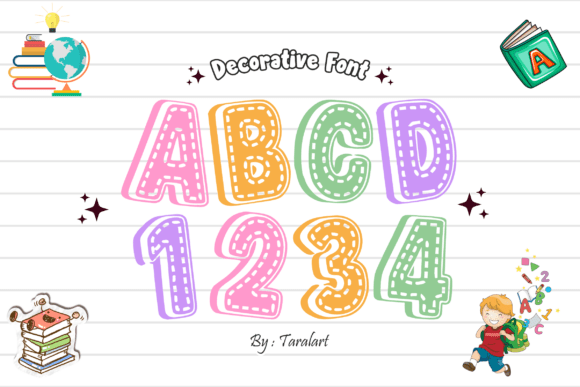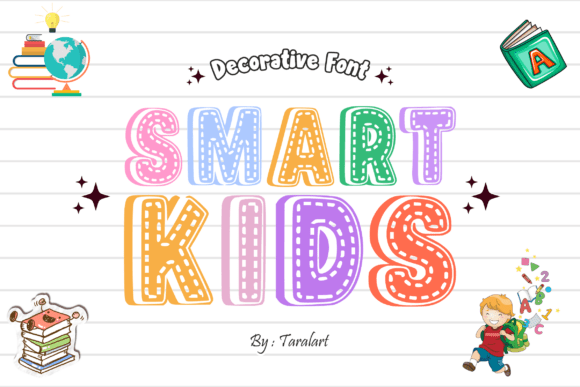
Introduction to Readinghobby Regular Font
Have you ever stumbled upon a font that instantly sparks a wave of creativity and makes you want to dive into a new project? For me, that font is Readinghobby Regular Font. Its playful, hand-sewn feel is like a breath of fresh air for designers looking to add a touch of whimsy to their work.
As a go-to design resource, Readinghobby Regular Font is perfect for creating high-quality visual content that pops. With its vibrant, multi-colored styling and 3D shadows, this font is sure to add energy and warmth to any project. Whether you’re working on a creative project or need a free download for a school project, Readinghobby Regular Font is an excellent choice. Its transparent background and high-quality design make it easy to use and customize.
Key Features of Readinghobby Regular Font
- High-quality design resource ideal for creative projects, offering a unique and modern aesthetic.
- Designed with a clean and elegant style, perfect for use in logos, headings, and body text.
- Offers a high-resolution design, suitable for use in print and digital applications.
- Includes a range of character sets, including uppercase and lowercase letters, numbers, and punctuation marks.
Honest Review: Readinghobby Regular Font
I recently stumbled upon the Readinghobby Regular Font, and I must say, it’s been a pleasant surprise. As a designer, I’m always on the lookout for high-quality design resources to enhance my creative projects.
- ✨ The font’s clean and elegant design makes it perfect for titles, headings, and body text.
- ✨ The free download option is a major plus, making it accessible to designers of all levels and budgets.
- ✨ The transparent background feature allows for seamless integration with various design elements.
- ⚠️ The font’s legibility could be improved for smaller text sizes.
- ⚠️ The character set is limited, which may not be suitable for projects requiring a wide range of special characters.
Overall, I’m impressed with the Readinghobby Regular Font’s potential. While it may not be perfect, its strengths make it a valuable addition to any designer’s toolkit. With a bit of fine-tuning, I believe it could become a go-to font for many creative projects.
The Readinghobby Regular Font is perfect for a wide range of creative projects, including blog posts, social media graphics, and presentations. Its modern look and high-quality design make it an ideal choice for any design project.
Alternatives to Readinghobby Regular Font
Open Sans is a highly legible sans-serif font that’s ideal for digital designs, such as websites and mobile apps. It’s a great choice for designers who need a clean and modern font for their creative project. Open Sans is available for free download and is widely used in design projects. It’s a great alternative to Readinghobby Regular Font for designers who want a high-quality font with a transparent background.
Comparison: Open Sans is more modern and minimalist compared to Readinghobby Regular Font, which has a more traditional feel. Open Sans is also more versatile and can be used in a wider range of design contexts.
Lato is a sleek and modern sans-serif font that’s perfect for designers who want a high-quality font for their creative project. It’s available for free download and has a transparent background, making it ideal for designs that require a clean and minimal aesthetic. Lato is a great alternative to Readinghobby Regular Font for designers who want a font with a similar feel but with a more modern twist.
Comparison: Lato is more modern and edgy compared to Readinghobby Regular Font, which has a more traditional feel. Lato is also more versatile and can be used in a wider range of design contexts.